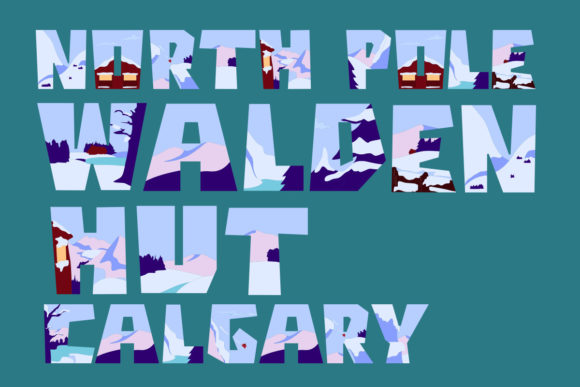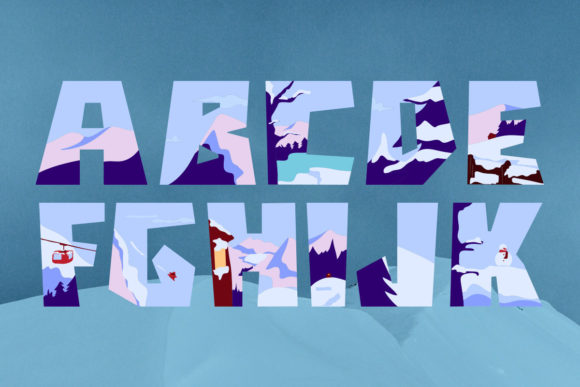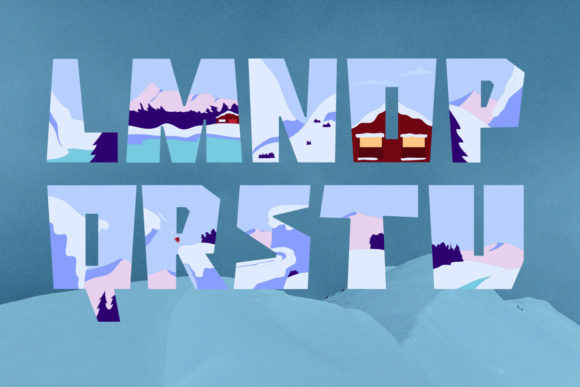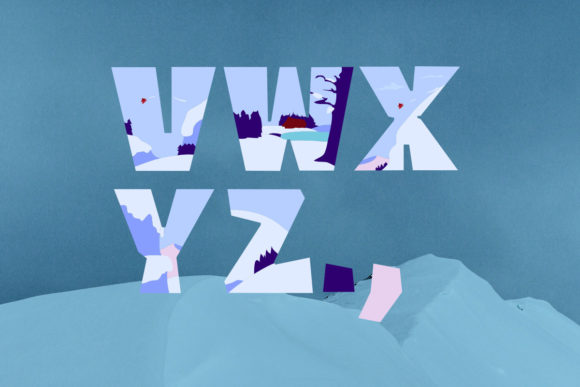
Introducing Decolite Winter Font: A Playful and Decorative Color Font for Your Winter Designs
Are you looking for a unique and memorable font to add a touch of winter magic to your designs? Look no further than Decolite Winter Font, a playful, decorative, and bold illustrative color font that’s perfect for creating stunning winter-themed posters, scrapbooks, crafts, t-shirts, and invitation cards.
What is Decolite Winter Font?
Decolite Winter Font is a specially designed font that captures the essence of mountain scenery, making it an ideal choice for winter-themed designs. This font is not just a simple text font, but a fully illustrative color font that allows you to add a pop of color and vibrancy to your designs.
Key Features of Decolite Winter Font
- Playful and Decorative: Decolite Winter Font is a playful and decorative font that’s perfect for adding a touch of whimsy to your designs.
- Bold and Illustrative: This font is bold and illustrative, making it perfect for creating eye-catching designs that stand out.
- Color Font: Decolite Winter Font is a color font (Opentype-SVG) that allows you to add a range of colors to your designs.
Design Ideas with Decolite Winter Font
Decolite Winter Font is a versatile font that can be used for a wide range of design projects. Here are some ideas to get you started:
- Winter Posters: Create stunning winter posters that capture the magic of the season.
- Scrapbook Pages: Add a touch of winter wonder to your scrapbook pages with Decolite Winter Font.
- Crafting Projects: Use Decolite Winter Font to create custom crafting projects such as cards, gift tags, and more.
- T-Shirt Designs: Create eye-catching t-shirt designs that are perfect for winter-themed apparel.
- Invitation Cards: Use Decolite Winter Font to create custom invitation cards for winter-themed parties and events.
Decolite Winter Font is a unique and memorable font that’s perfect for adding a touch of winter magic to your designs. With its playful, decorative, and bold illustrative style, this font is sure to capture the essence of the winter season.